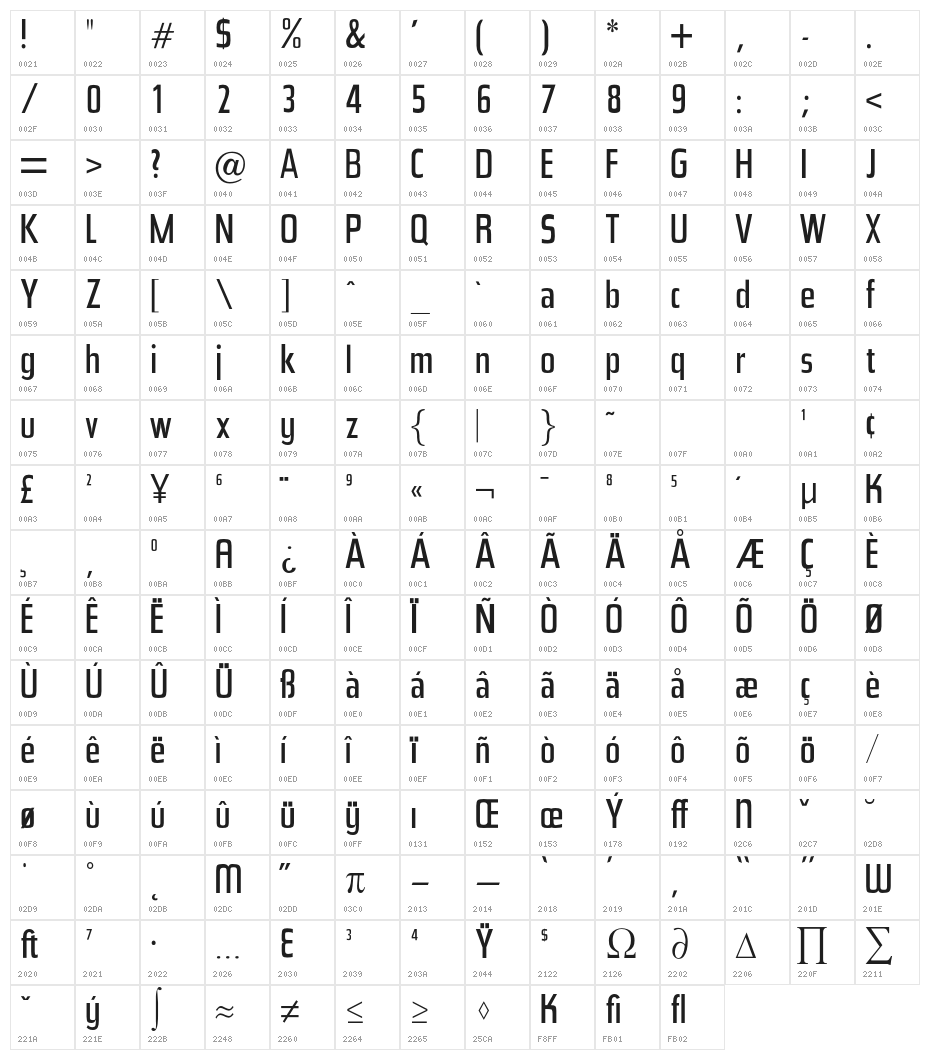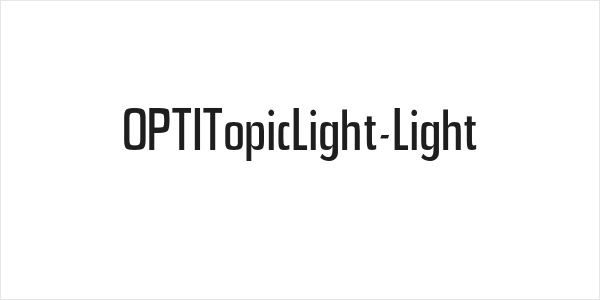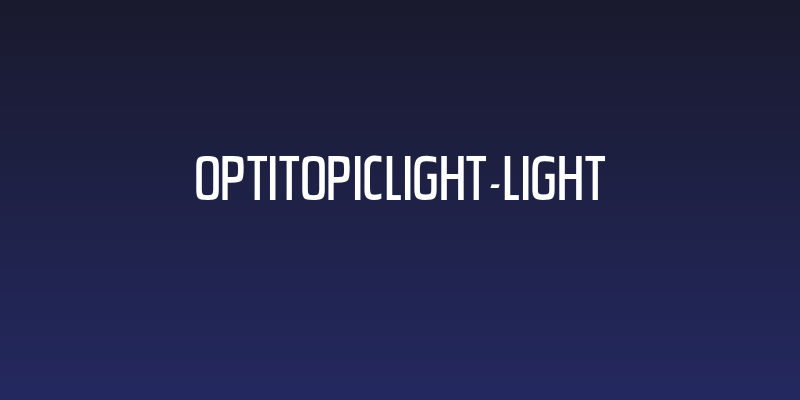
OPTITopicLight-Light Font
OPTITopicLight-Light Description
This font exhibits a clean and modern sans-serif style with a geometric influence. The characters are well-proportioned, featuring a uniform stroke width that contributes to its legibility. The uppercase letters are tall and commanding, while the lowercase letters maintain a consistent x-height, ensuring readability across various sizes. The numerals are straightforward and align well with the overall design, making them suitable for data presentation. Special characters are distinct and harmonize with the alphabetic characters, enhancing the font's versatility. The overall appearance is sleek and professional, ideal for contemporary design projects.